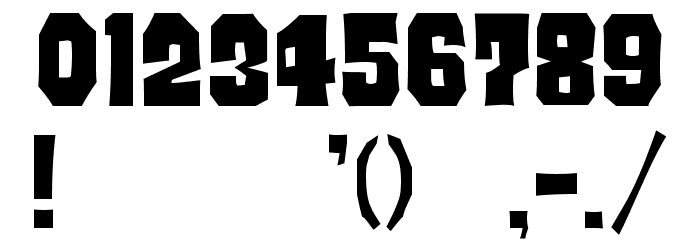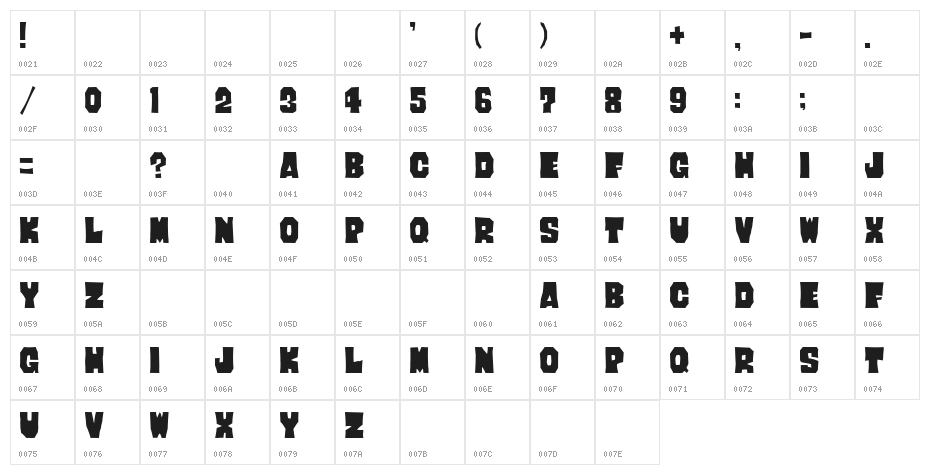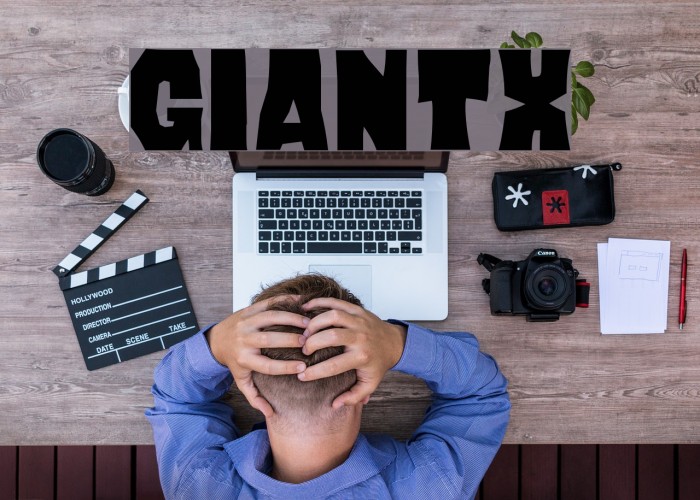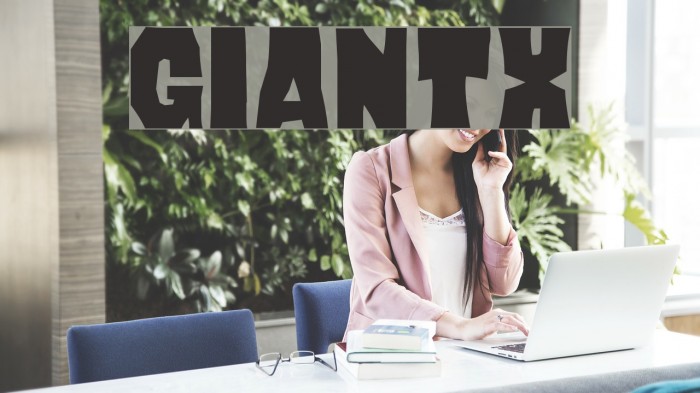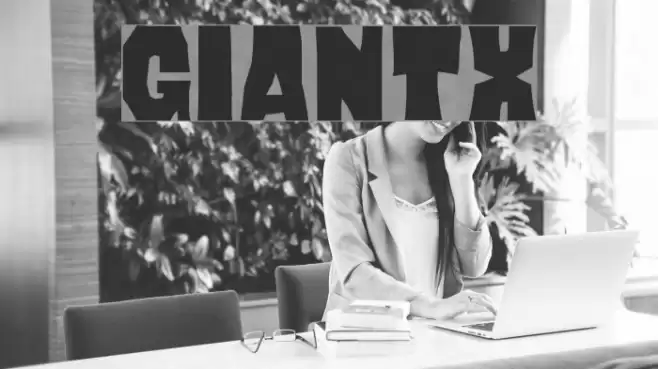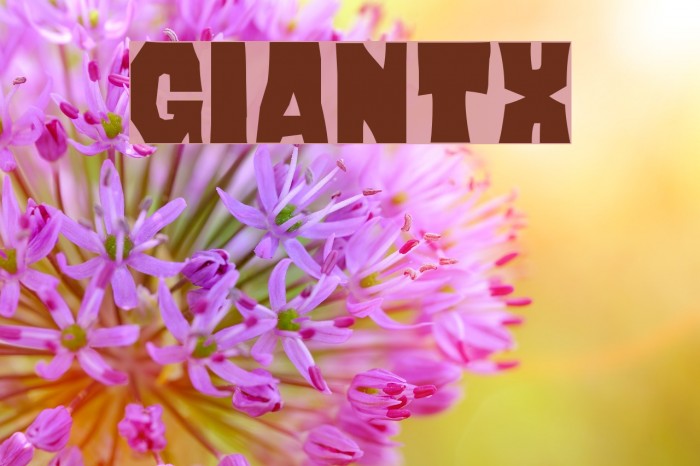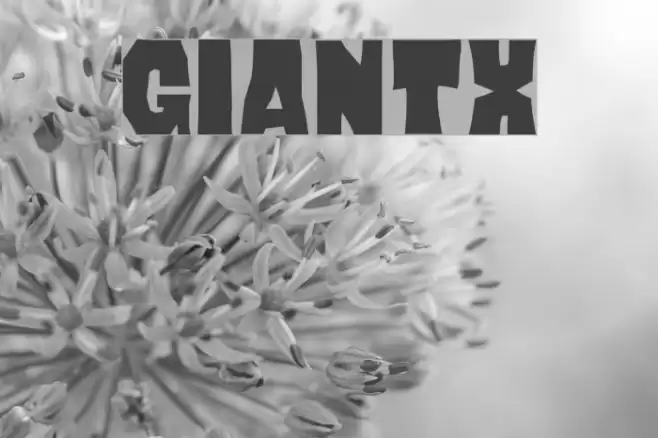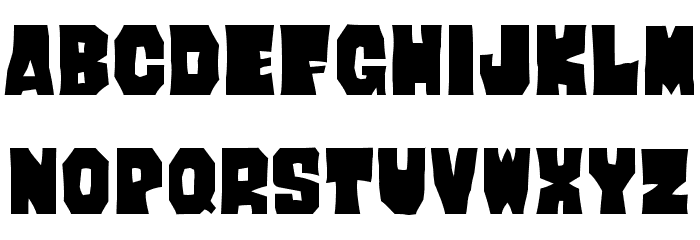
GIANtX Font
GIANtX Description
This font features a bold, angular design with a strong presence, characterized by its thick, blocky letters. The uppercase and lowercase letters share a consistent geometric style, creating a cohesive and impactful look. The numbers and special characters maintain this boldness, ensuring uniformity across all glyphs. The font's sharp edges and solid forms make it stand out, ideal for attention-grabbing designs. Its unique style is reminiscent of vintage poster typography, yet it carries a modern twist with its clean lines and structured appearance.
| Proposed Projects | Ideal for posters, headlines, branding, and any project requiring a bold statement. |